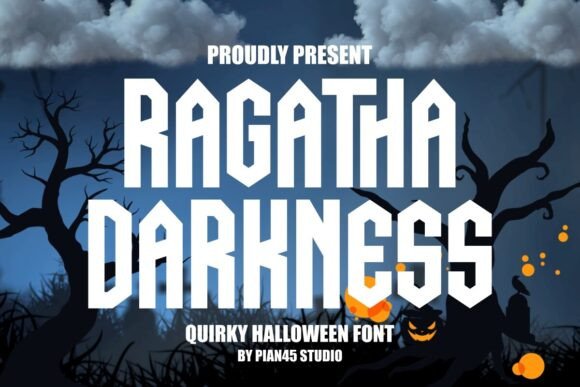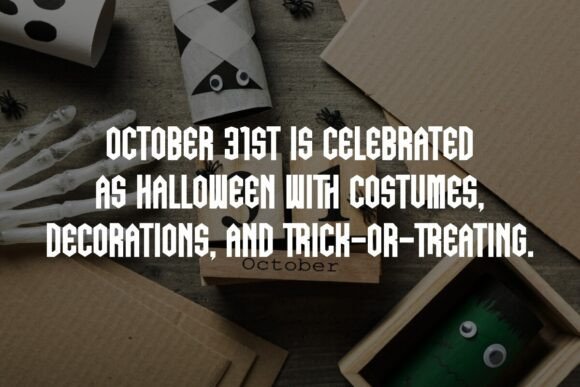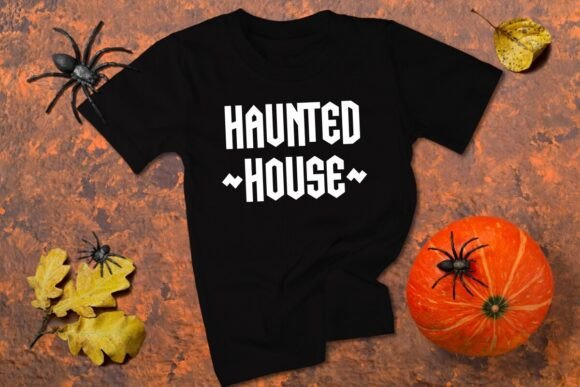
Ragatha Darkness Font
About the Ragatha Darkness Font
From logos to headlines, the Ragatha Darkness Font is the perfect choice for making a lasting impression. Ragatha Darkness is a bold and quirky Halloween-inspired font with a unique twist. Drawing inspiration from a trending box office film series, this font adds a playful yet eerie vibe to your designs. Perfect for quotes, backgrounds, apparel, and mockups like t-shirts, mugs, tote bags, pillows and Hocus Pocus Tumbler. This font brings a touch of spooky charm to any project and also great for social media that giving your content a standout with supernatural feel.
Ragatha Darkness excels in headline use, short impactful quotes, and branding applications where a bold, playful, yet slightly spooky aesthetic is desired. It’s ideal for Halloween-themed projects, horror-inspired merchandise, or brands aiming for a darkly whimsical feel. Avoid using it for body text or lengthy paragraphs; its quirky forms would hinder readability.
For optimal pairings, consider complementing its bold character with a clean sans-serif like Open Sans for body copy, or a more elegant serif such as Playfair Display for supporting text. A geometric sans-serif like Montserrat could also offer a stylish contrast. Avoid pairing it with overly ornate or decorative fonts, as this might clash with its unique character.
The font’s core personality is best described as bold, quirky, and darkly playful, making it well-suited for projects that embrace a unique, slightly unsettling yet ultimately fun and memorable aesthetic.
Ragatha Darkness Font Usage Examples
Ragatha Darkness Font Example